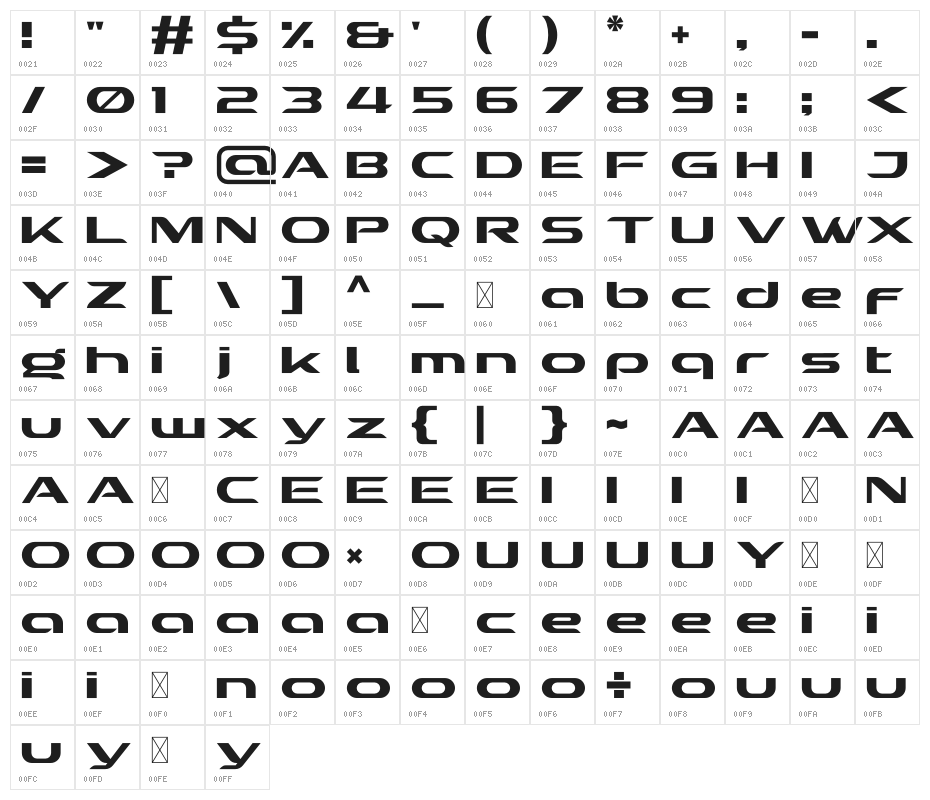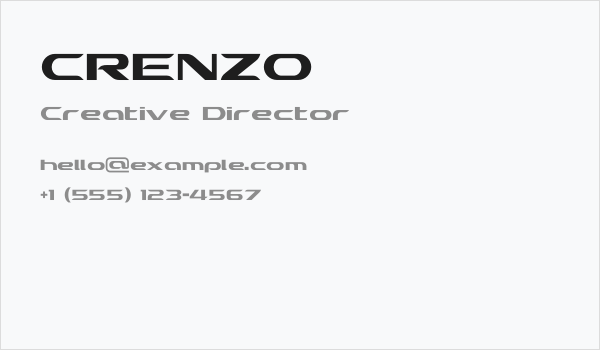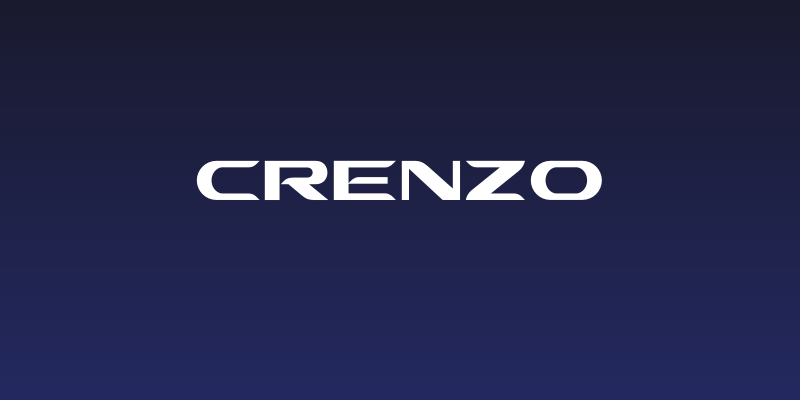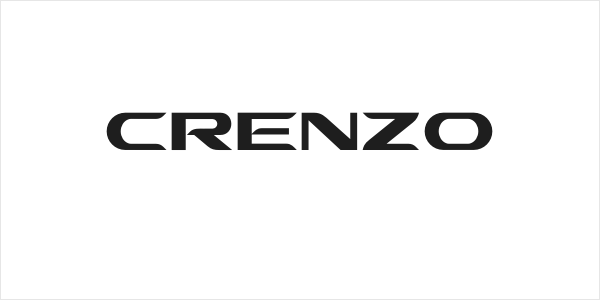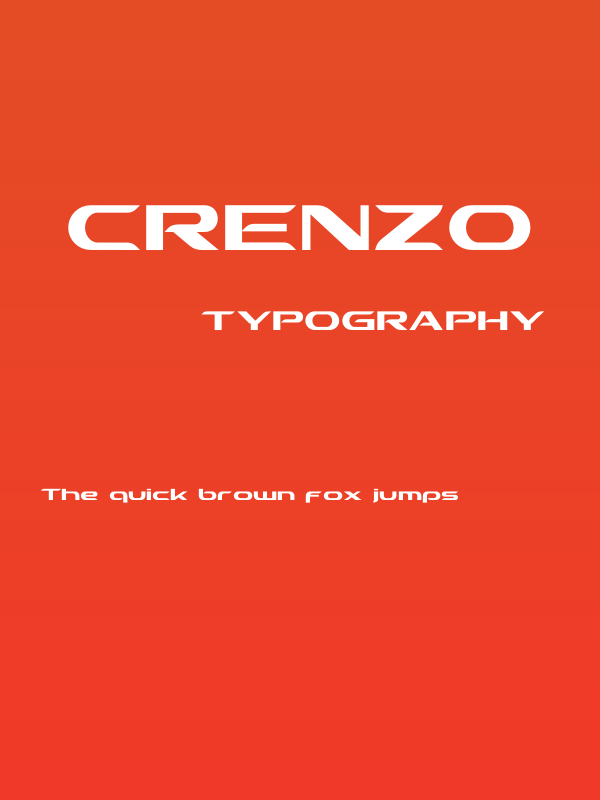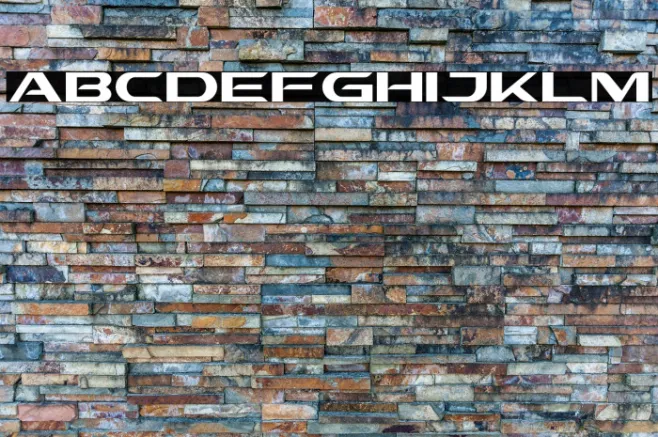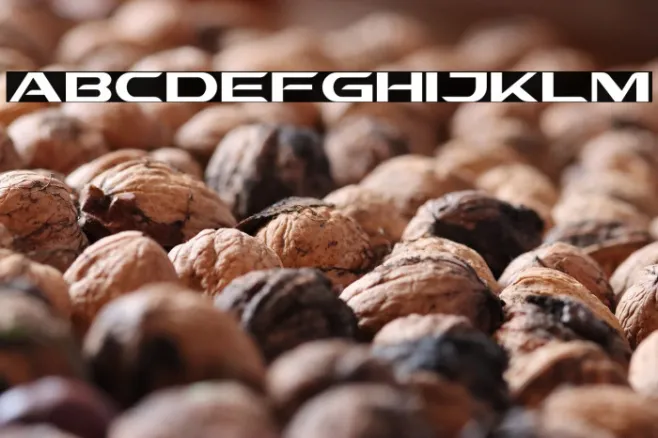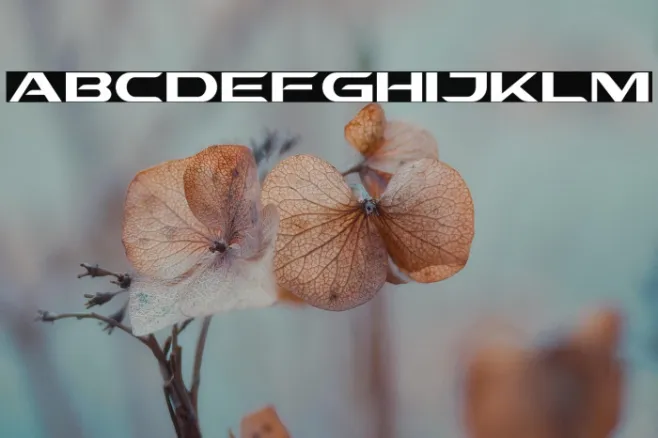
CRENZO Font
CRENZO Description
This font features a futuristic and angular design, characterized by sharp edges and geometric shapes. The uppercase letters are bold and striking, with a consistent height that gives a uniform appearance. The lowercase letters maintain the angular theme, with unique cuts and angles that add a modern flair. The numerals are equally bold, with a consistent width that complements the overall design. Special characters are designed with the same attention to detail, ensuring they fit seamlessly with the rest of the font. This font is ideal for projects that require a modern and edgy look.